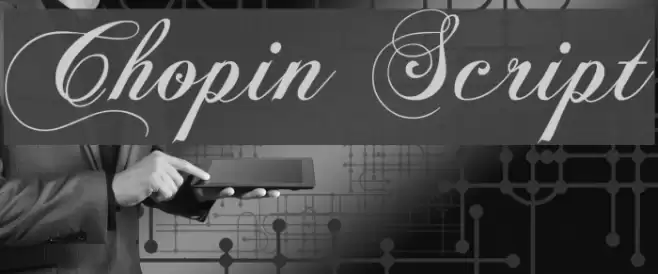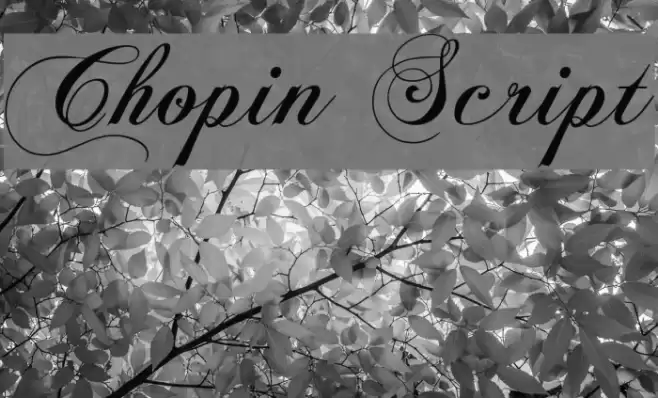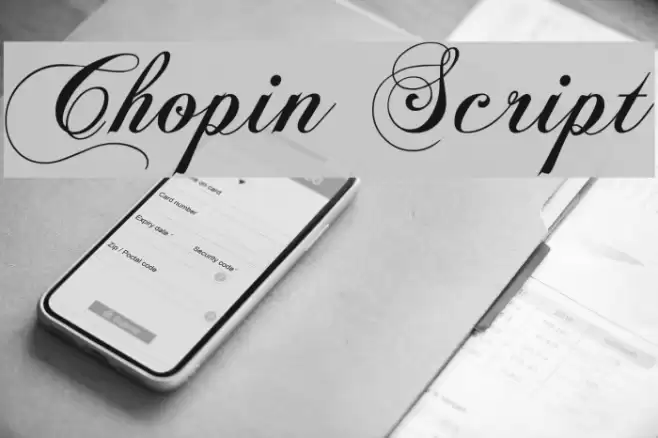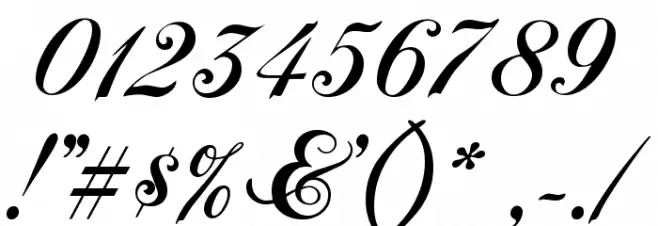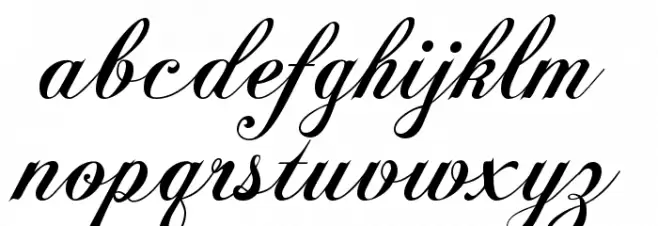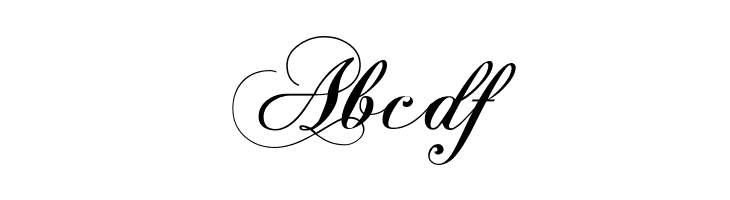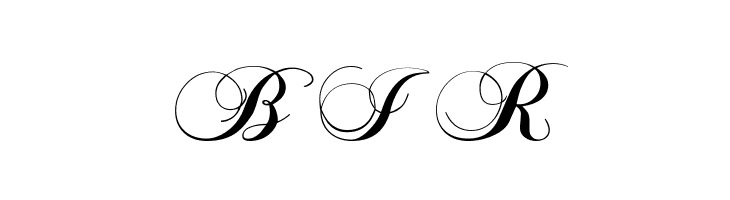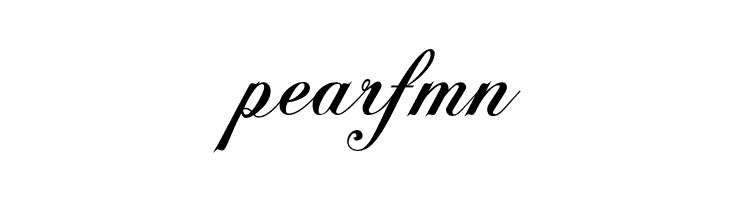
Chopin Script Font
Chopin Script Description
This elegant script font features intricate, flowing letterforms with elaborate swashes and flourishes. The uppercase letters are particularly ornate, with extended loops and curls that give a sense of sophistication and grandeur. The lowercase letters maintain a consistent style, with smooth, connected strokes that enhance readability while retaining a decorative flair. The numerals and special characters are designed to match the overall aesthetic, ensuring a cohesive look across all text elements. This font exudes a classic, romantic feel, making it ideal for formal invitations, certificates, and branding that requires a touch of elegance.
An elegant script font with intricate swashes and flowing letterforms from Calligraphic fonts.
- Proposed Projects: Ideal for wedding invitations, formal event programs, luxury branding, and elegant stationery.
- Overall Style: Classic
- Use Case: Invitations, Branding, Decorative text